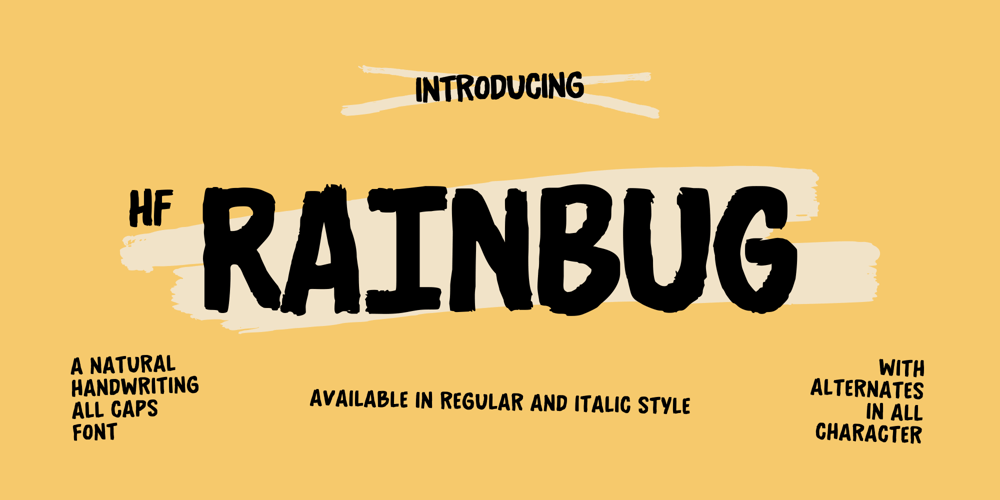
HF Rainbug Font Family was designed by Holis Majid and published by Holis.Mjd. HF Rainbug contains 2 styles and family package options. HF Rainbug is a natural brush font with all camps characters complete with alternates for each character. Not only that, this font also multilingual support. This font is suitable for various design themes that you will design, and can be adjusted easily to get a natural feel because alternates are available for each character.**Uppercase